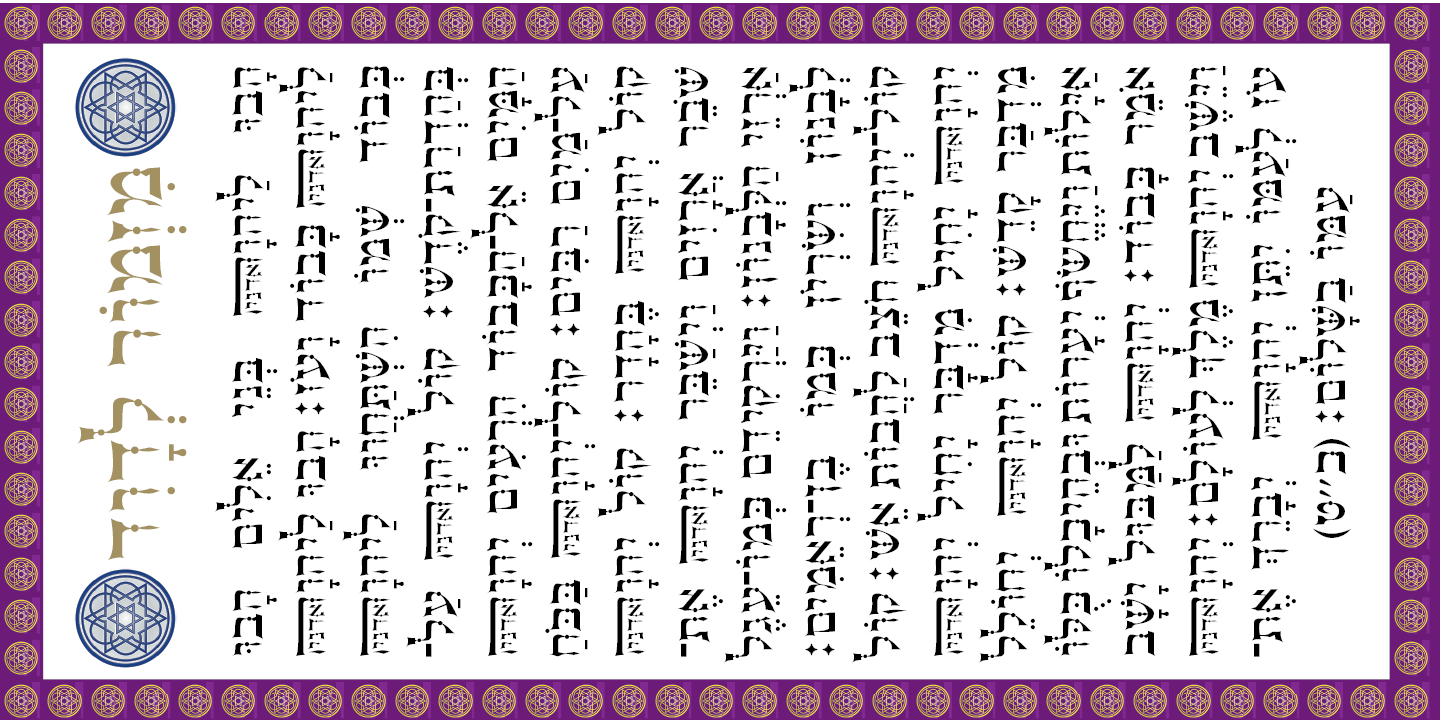
Hebrew Dot II Font is perfect for Jewish cultural organizations, synagogue signage, Hebrew educational materials, religious publication designs, cultural heritage projects, Bar/Bat Mitzvah invitations, Judaica branding, and spiritual designs that require authentic Hebrew typography and cultural reverence.
This font is exciting because it honors the sacred tradition of Hebrew calligraphy through its carefully crafted letterforms that preserve the spiritual essence and cultural significance of ancient Hebrew script. The reverent character design reflects thousands of years of Jewish textual tradition, making it perfect for projects that celebrate Hebrew heritage and religious authenticity.
Hebrew Dot II Font belongs to the traditional Hebrew font family, featuring classical styling and cultural elements that enhance its authenticity for religious and educational-focused design applications.
Whether you're creating Jewish community branding or Hebrew educational graphics, Hebrew Dot II Font Free Download delivers profound cultural resonance and spiritual dignity. This typeface represents the perfect balance between traditional Hebrew calligraphy and modern functionality, making it essential for designers working on projects that require cultural sensitivity and religious authenticity. The font's sacred presence works beautifully in religious communications, educational materials, and cultural celebrations, providing excellent readability while maintaining its traditional character that transforms any design with Hebrew heritage and spiritual significance across all media platforms and Jewish community communications.